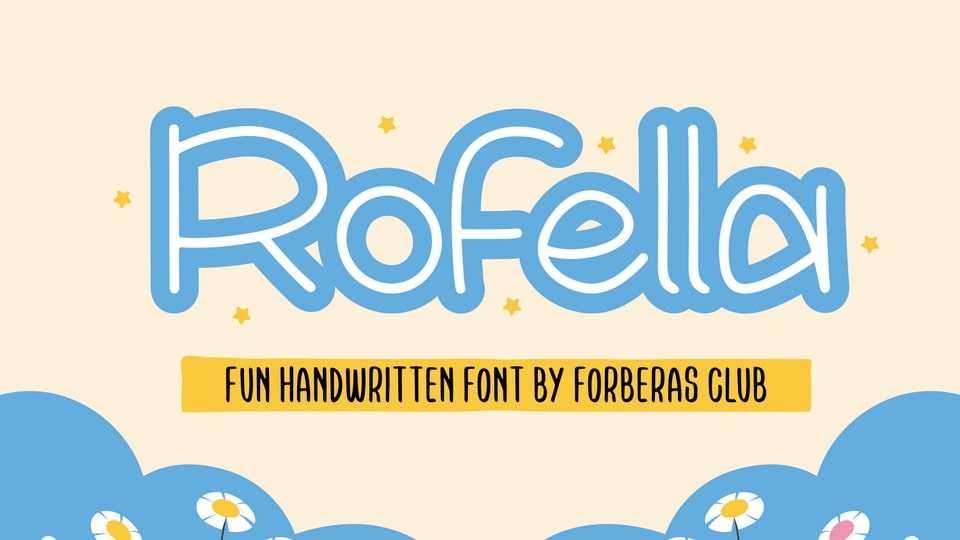
Download Rofella font, a handwritten typeface inspired by modern and ligature characters. It is especially designed for playful, funny, kids projects, Rofella font is perfect for creating modern and cool designs such as logos, packaging, editorials and more.